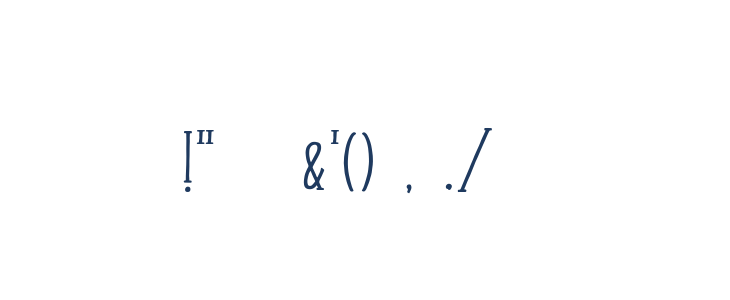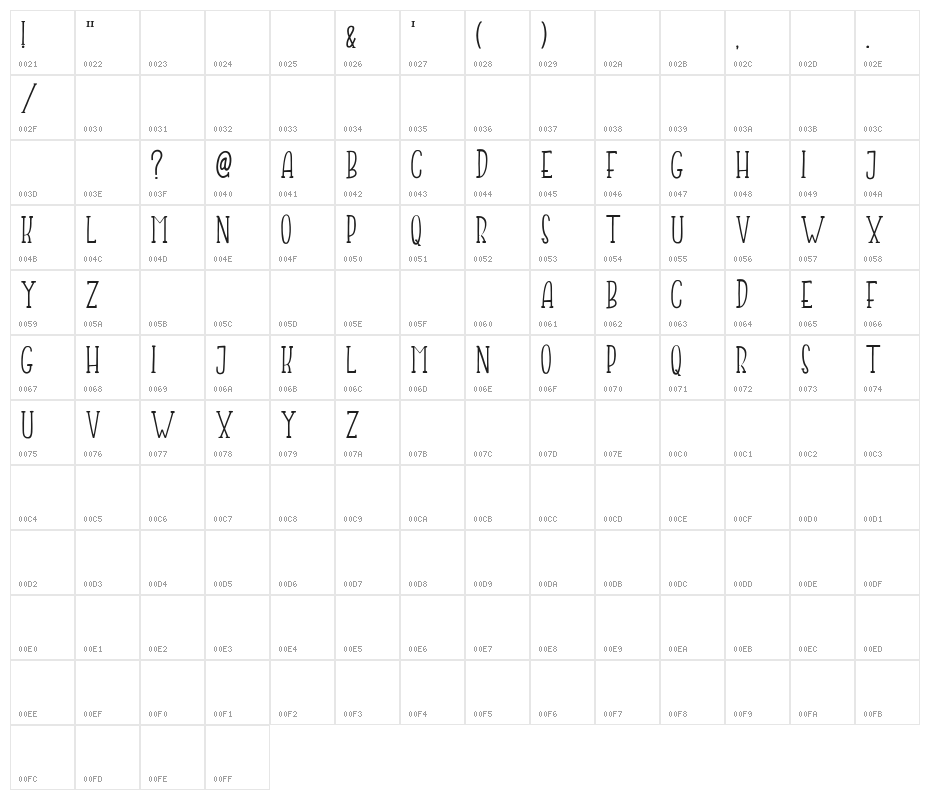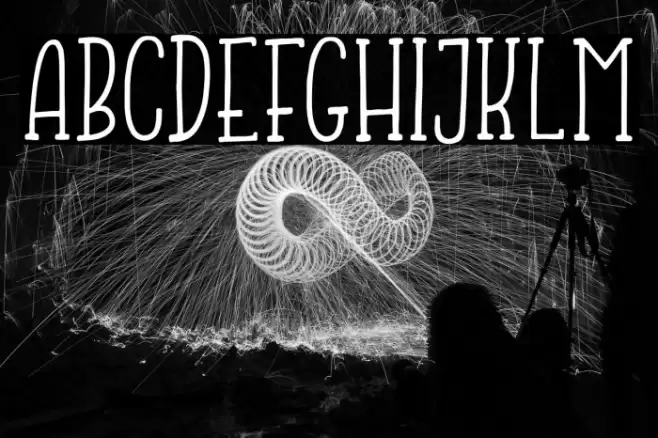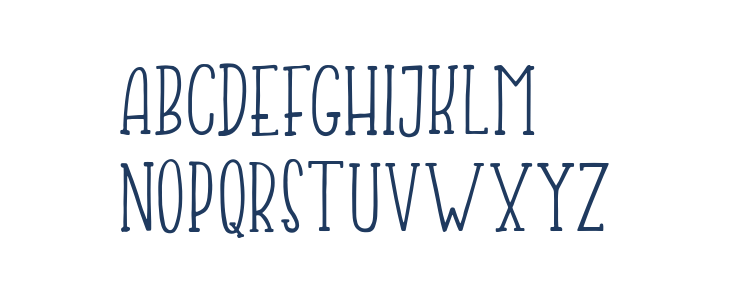
JumpingFrogDemo Font
JumpingFrogDemo Description
This font features a playful and whimsical design, characterized by tall, narrow letters with a slight bounce in their form. The strokes are consistent in thickness, giving it a uniform appearance, while the slight curves and extended serifs add a touch of elegance and fun. The uppercase letters are particularly elongated, creating a sense of height and movement. The lowercase letters maintain the same playful style, complementing the uppercase set. The special characters are designed to match the overall aesthetic, ensuring a cohesive look across all text elements.